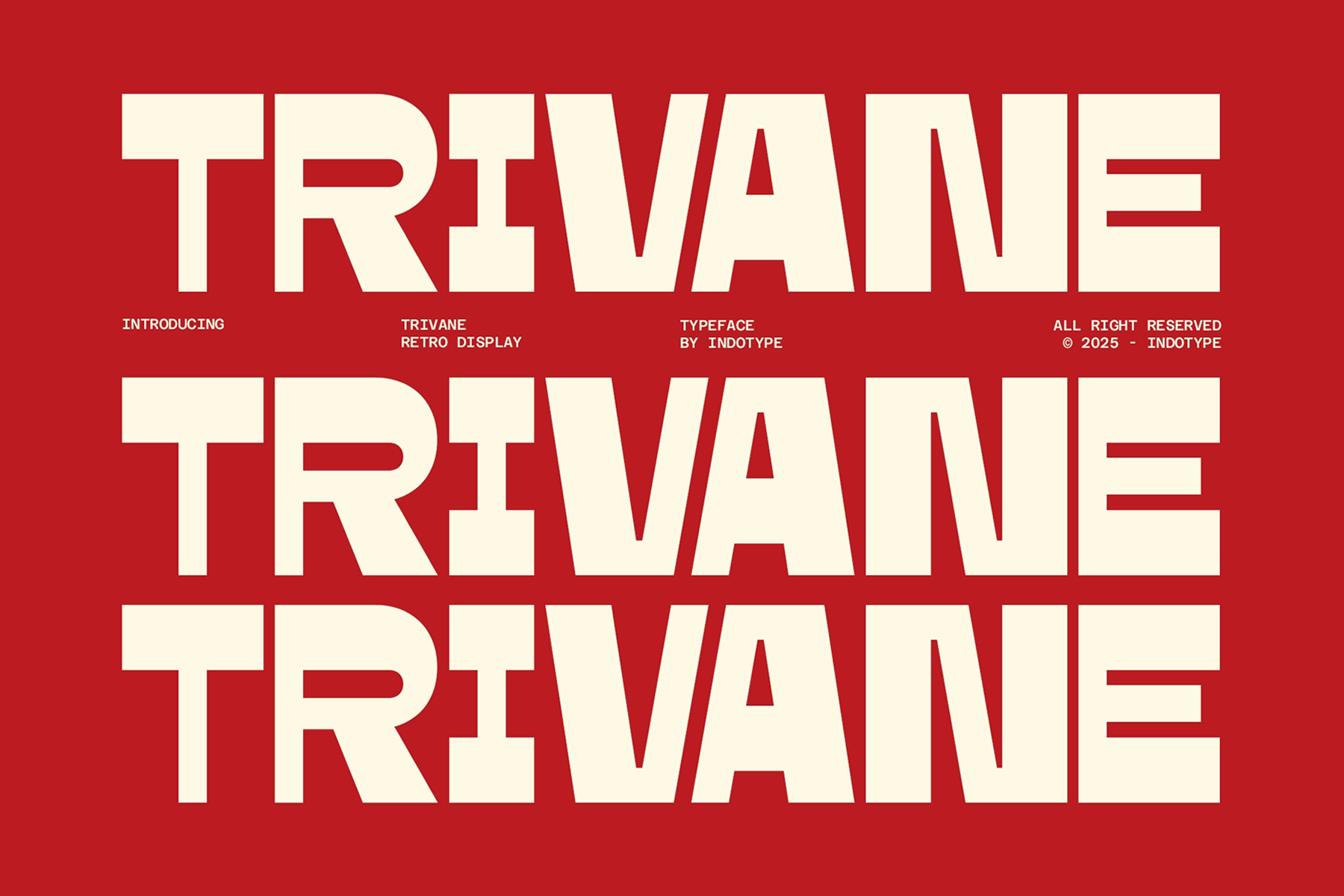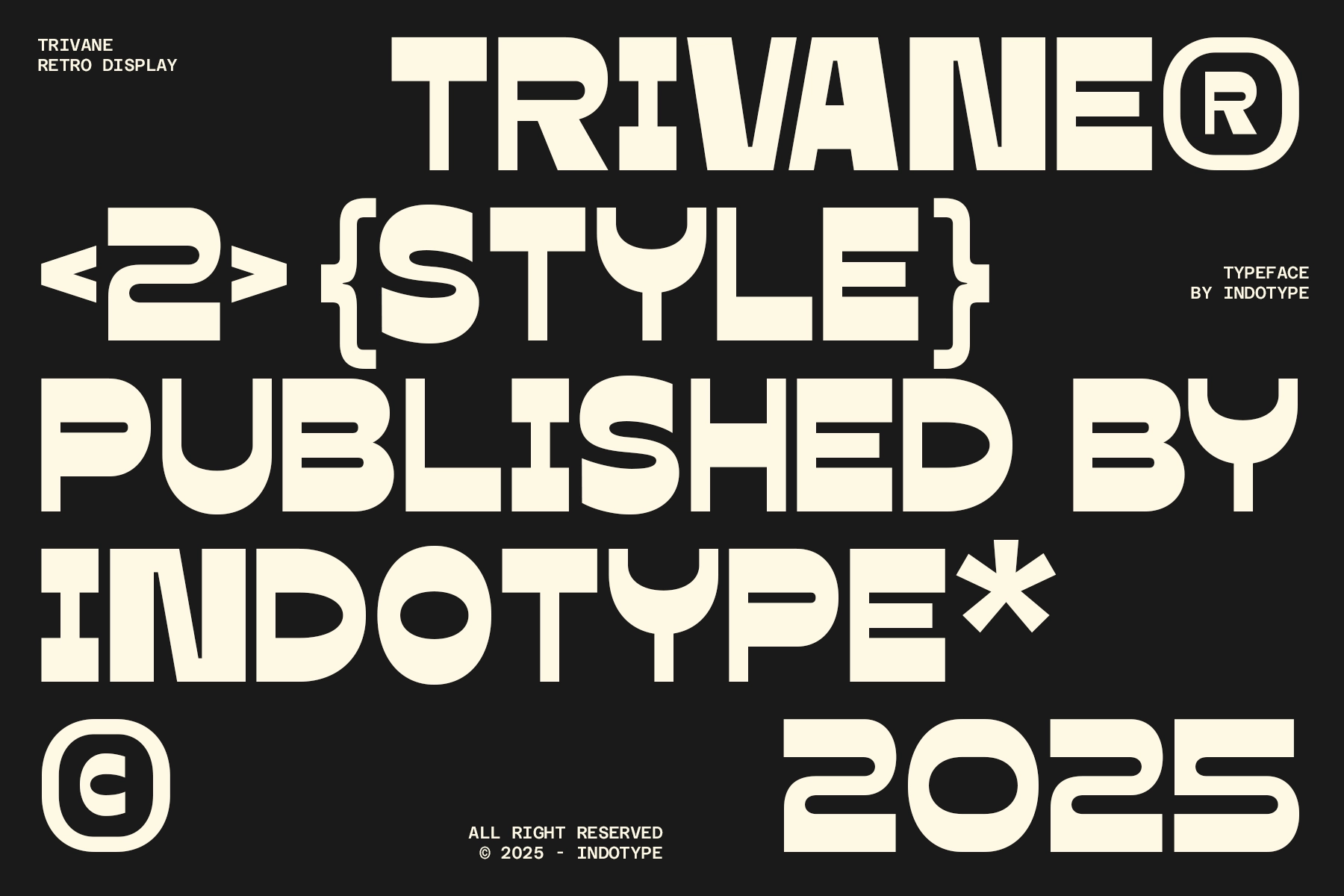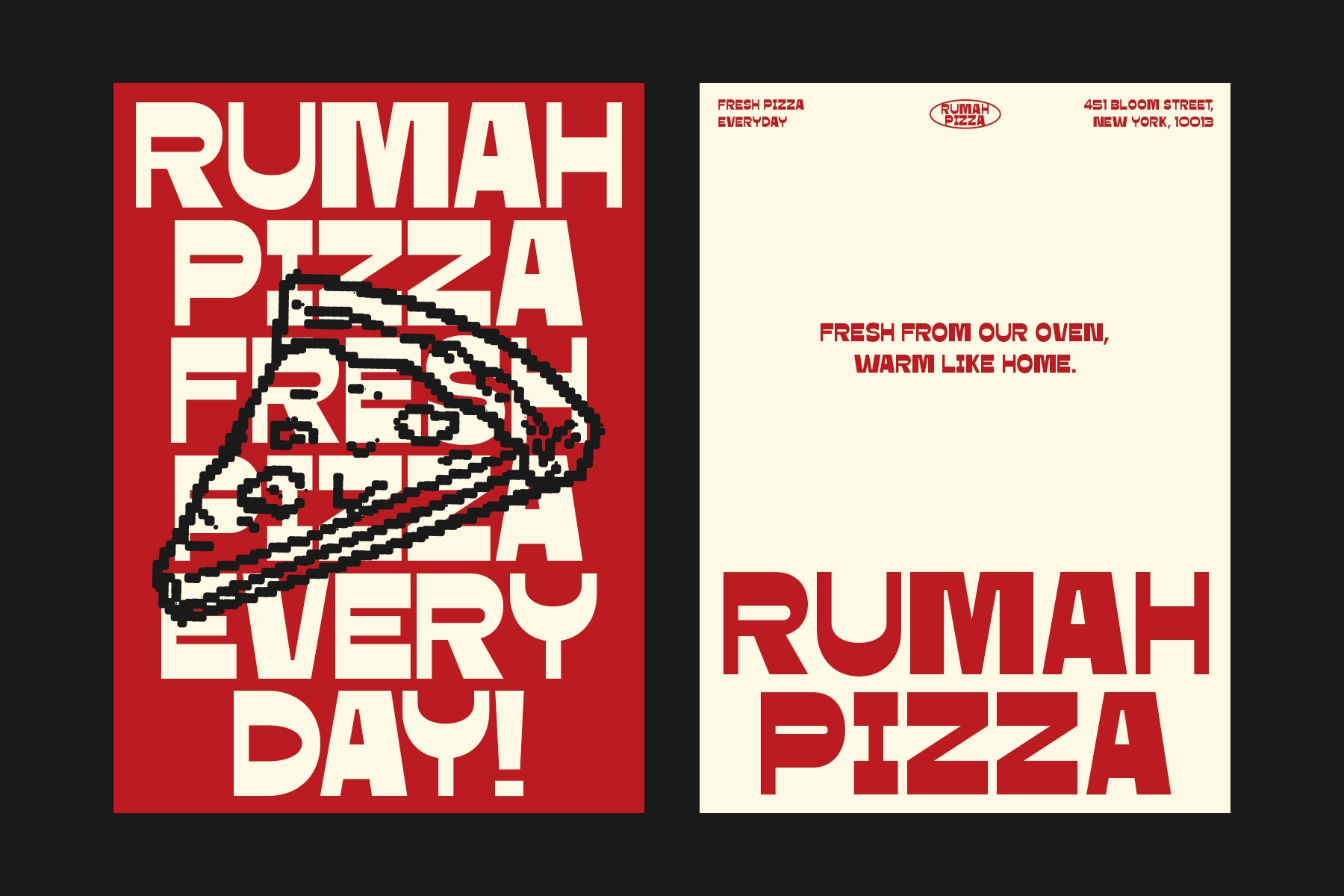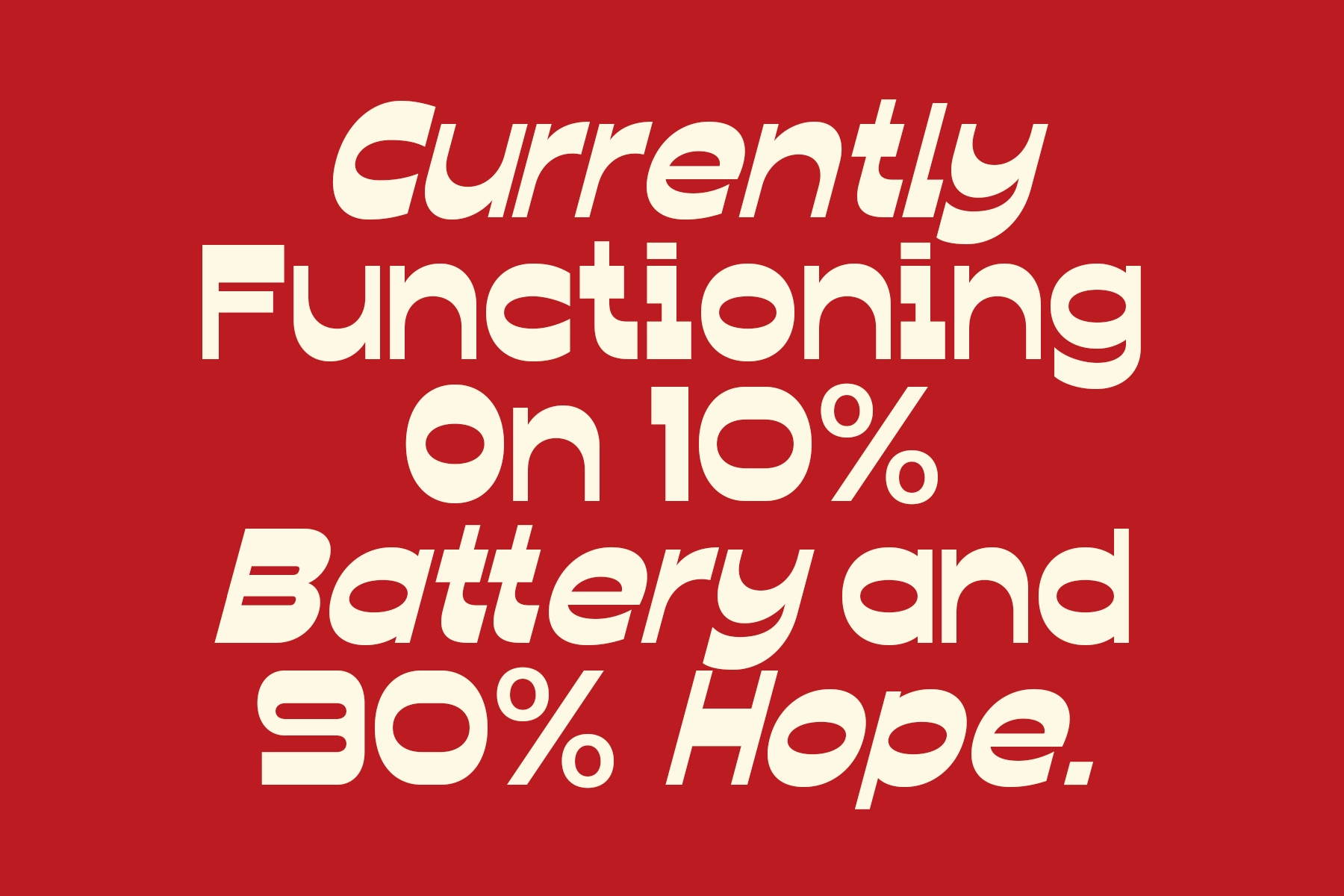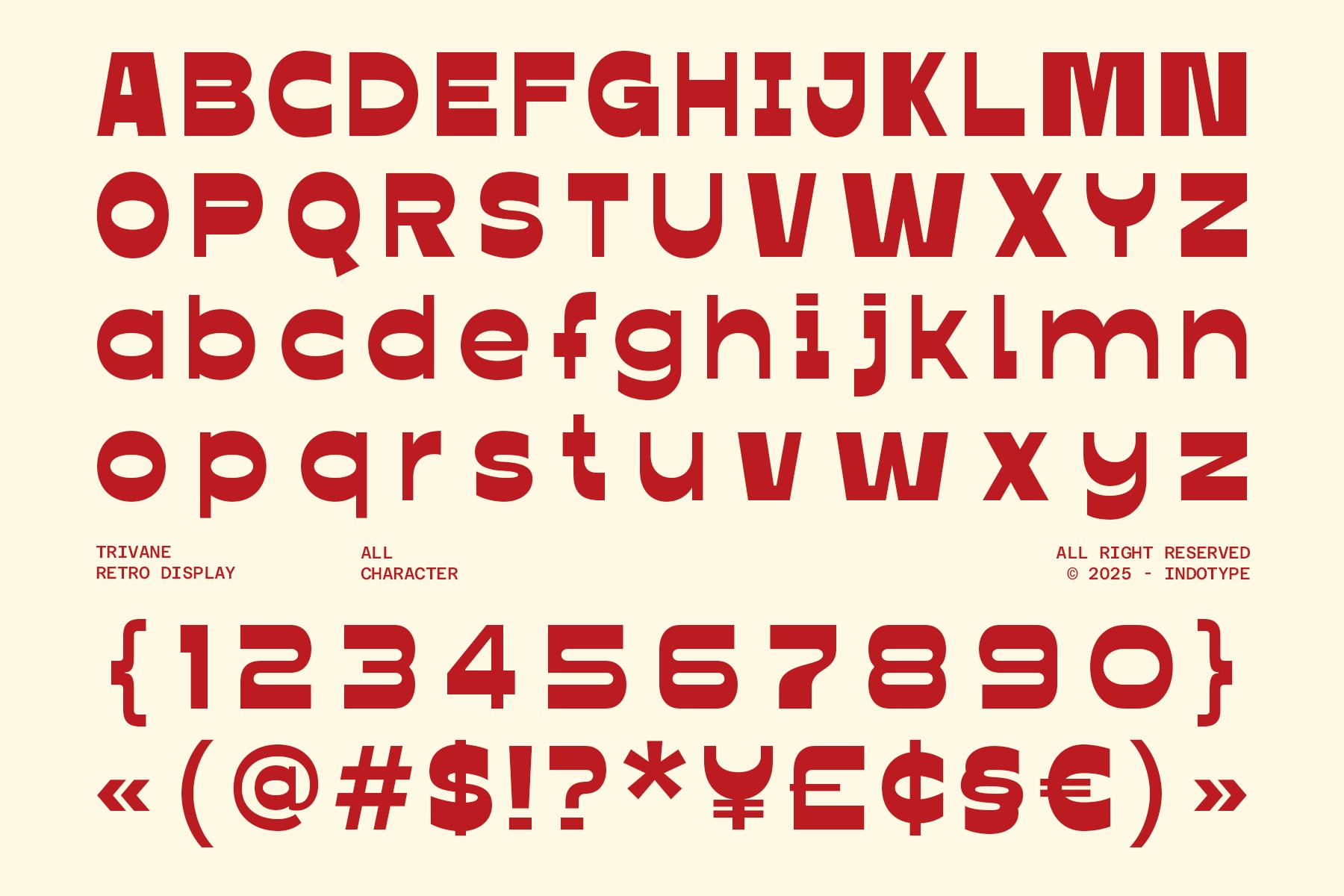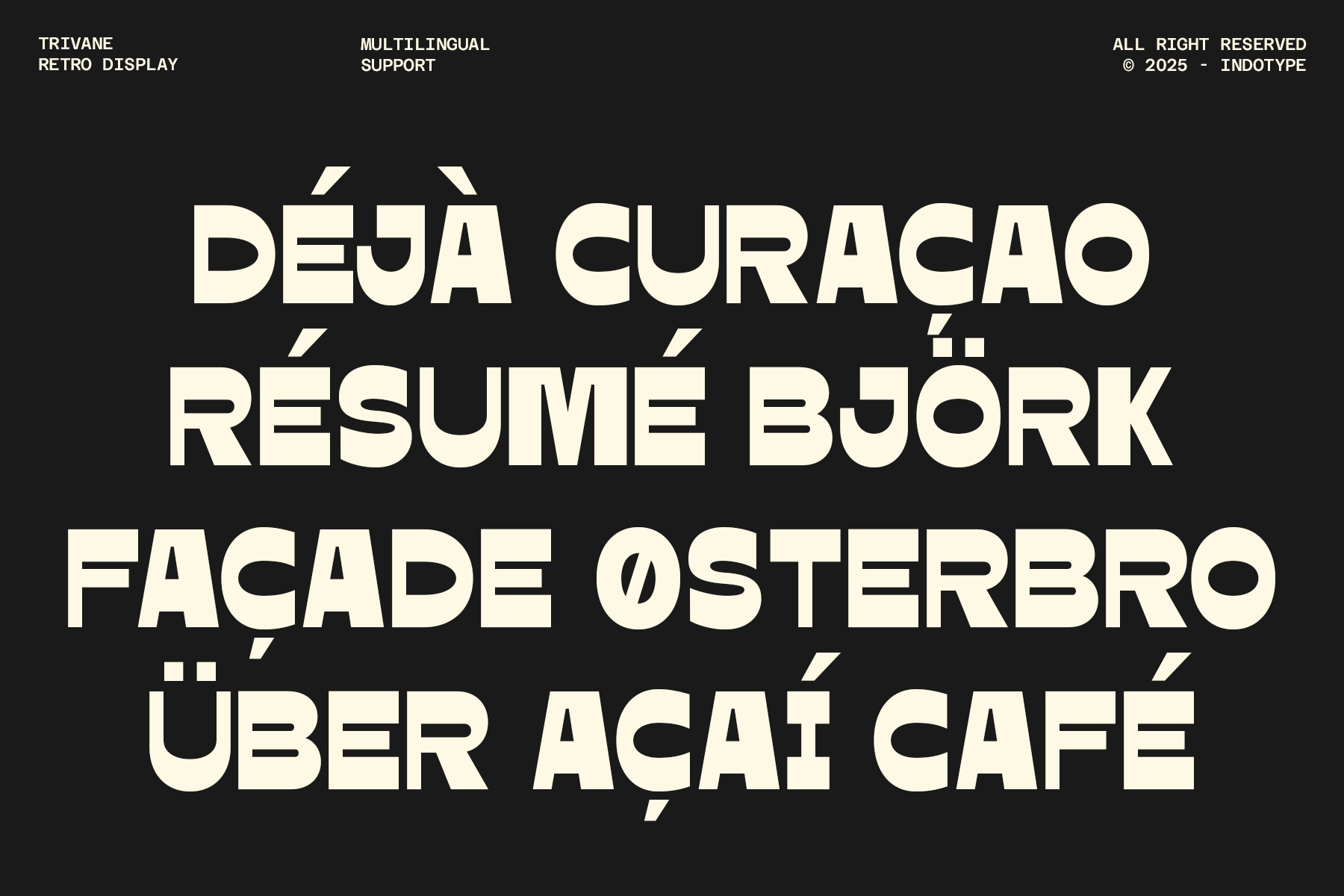
Trivane - Bold Reverse Contrast Display Font
A bold reverse-contrast display font with wide geometric shapes, flat-cut terminals, and a strong retro sci-fi charge. Its display construction is made for big type, giving headlines a crisp mechanical look with plenty of graphic force.
Trivane works best in short, confident settings where the letterforms can take up space and do the talking. Use it for logos, poster titles, album covers, pizza shop branding, tech graphics, gaming visuals, event flyers, product packaging, editorial headlines, merch prints, social media banners, and more.
- 2 styles: Italic, Regular